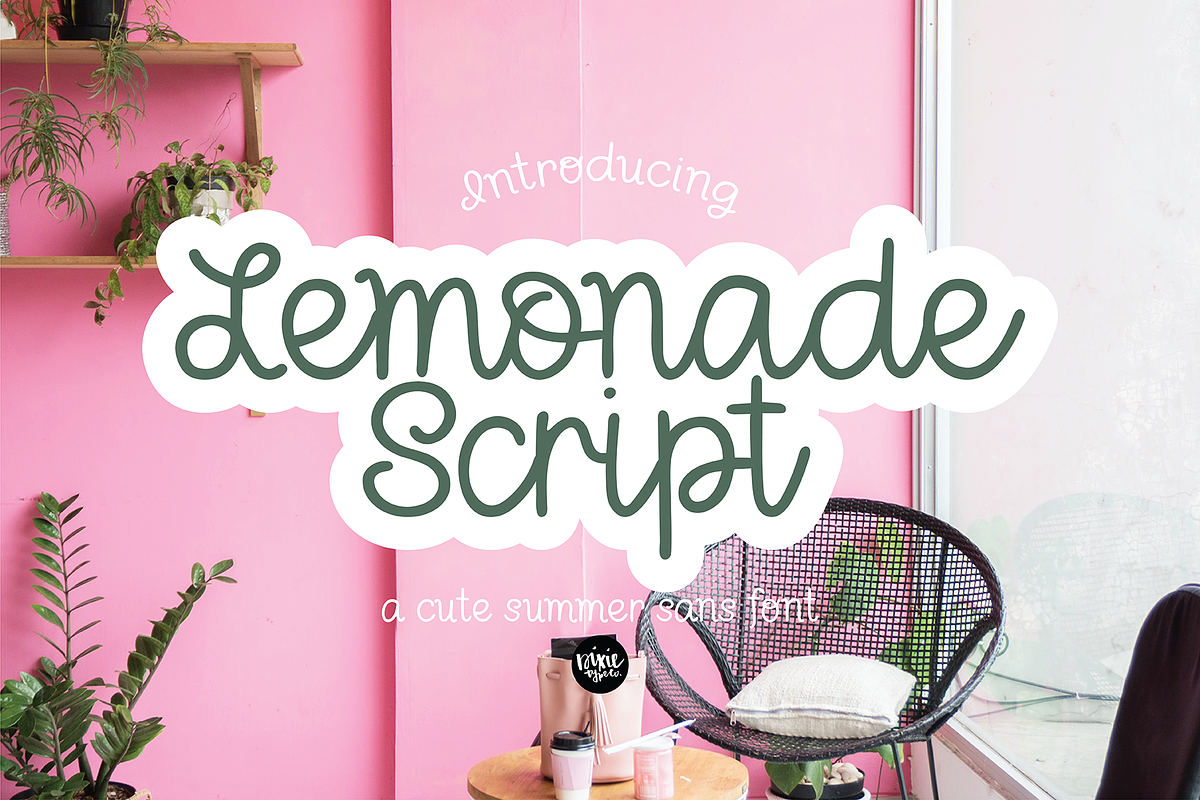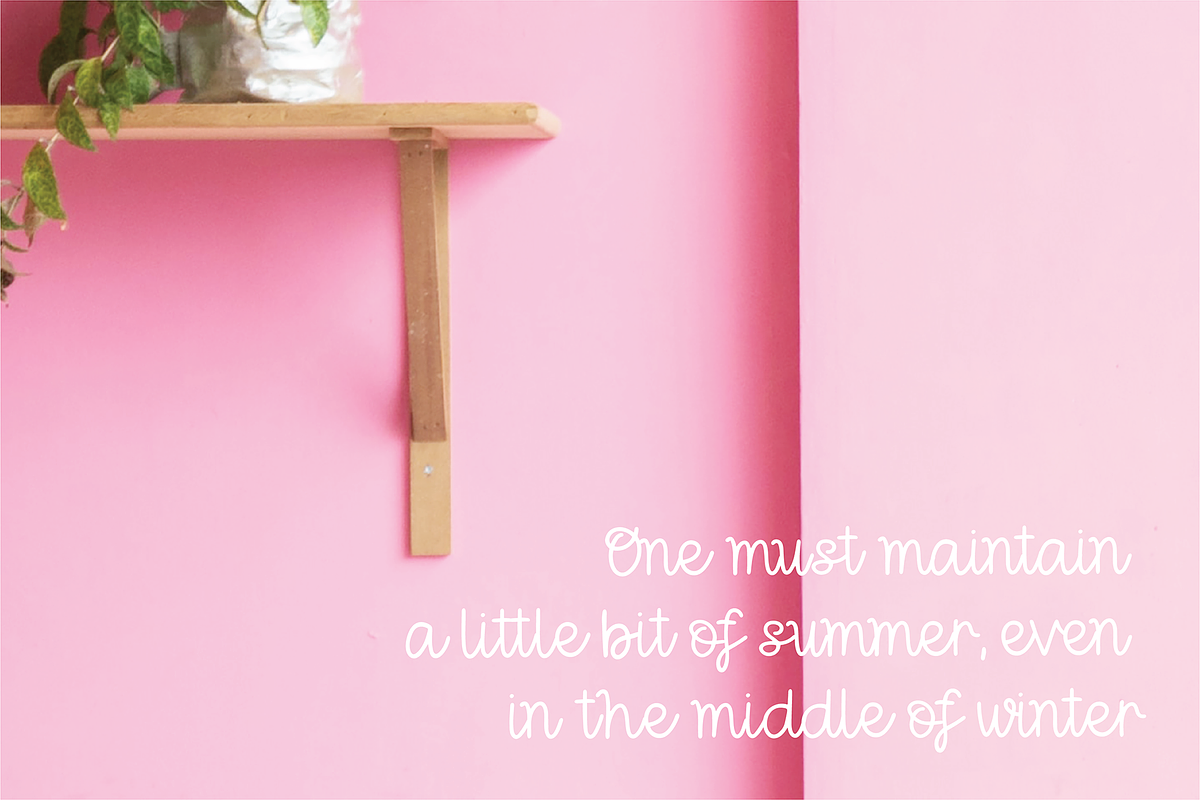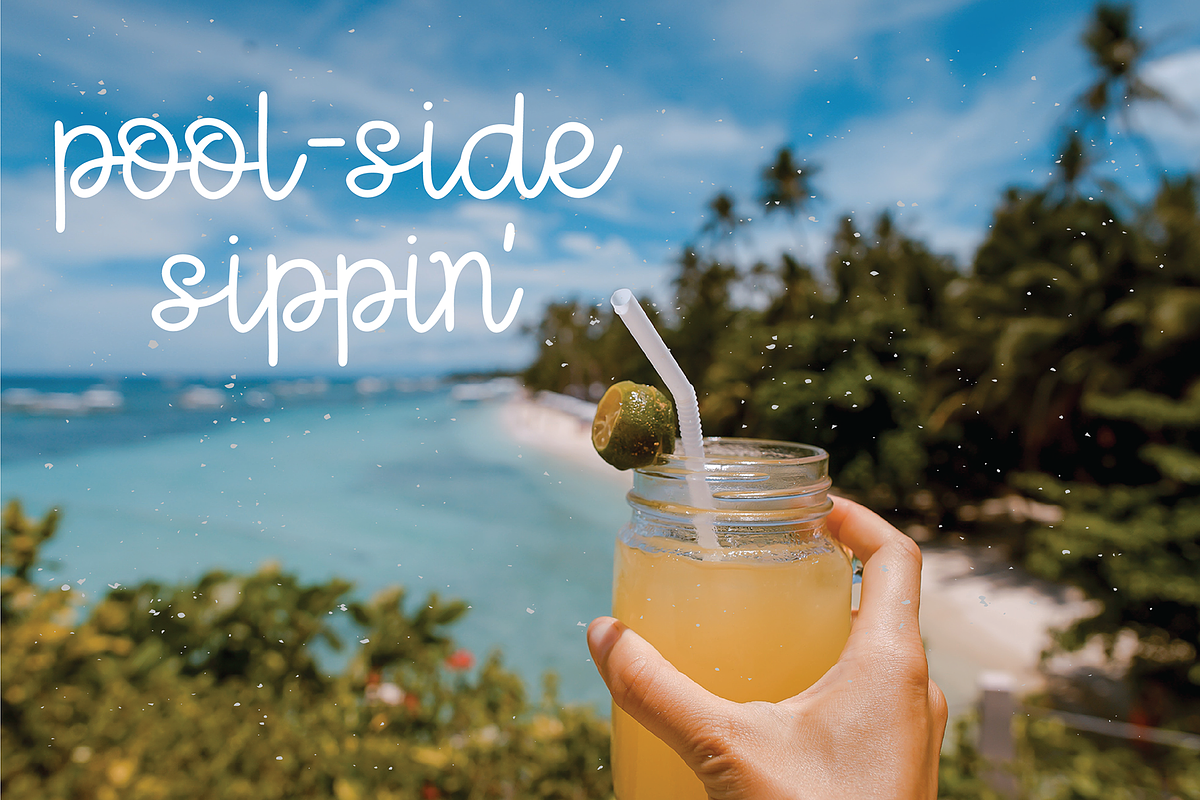
LEMONADE SCRIPT a Cute Cursive Font
{ A typographic font hand-lettered with love by Dixie Type Co. }
LEMONADE is a cute, casual, handwritten script font. It is feminine and flirty. Use it on craft projects, party invitations, business cards, party invitations, signs, etc.!